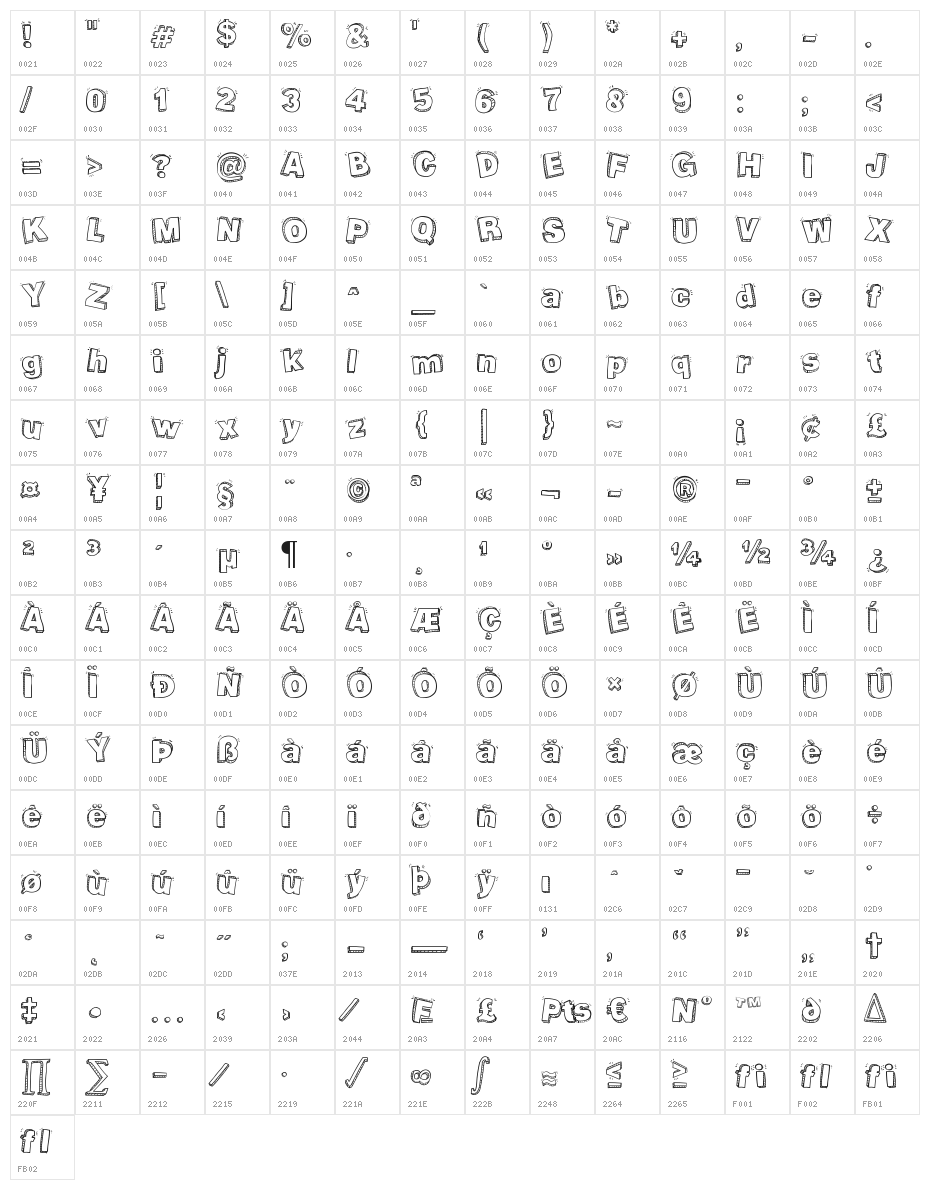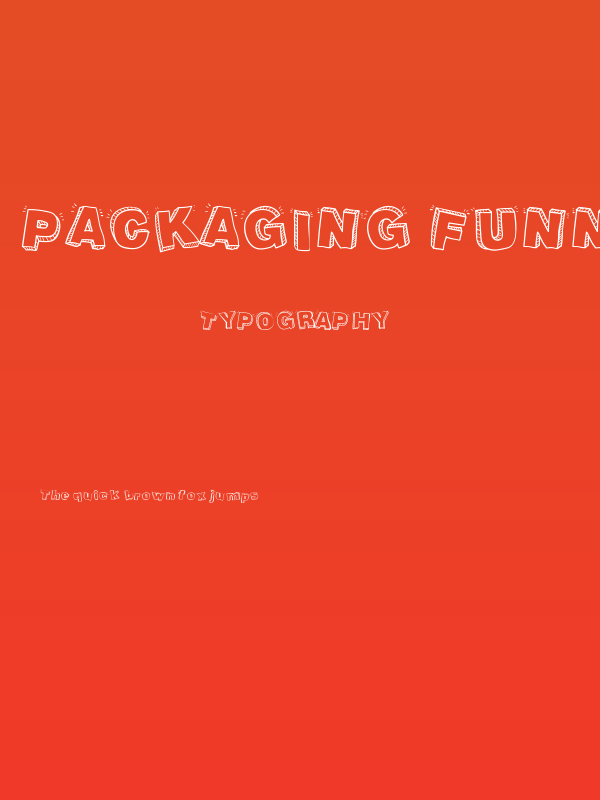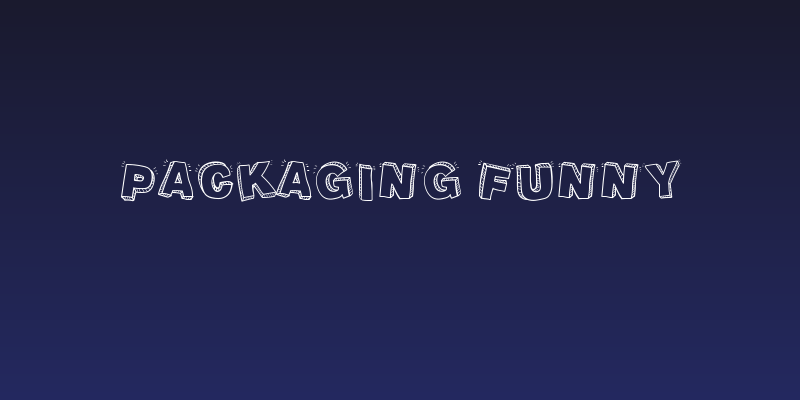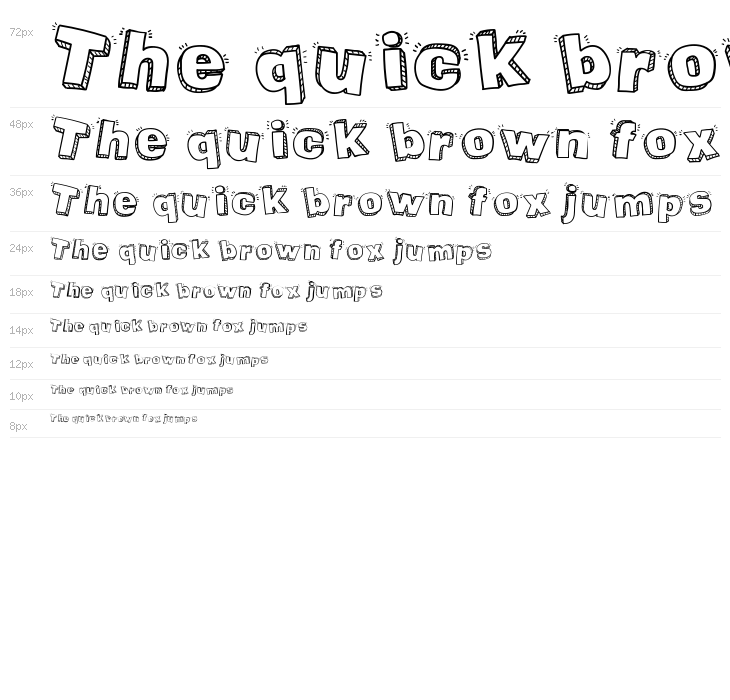
Packaging Funny Font
| Stile generale | Playful, Whimsical |
| Progetti proposti | Ideal for children's books, comic strips, playful branding, party invitations, and fun social media graphics. |